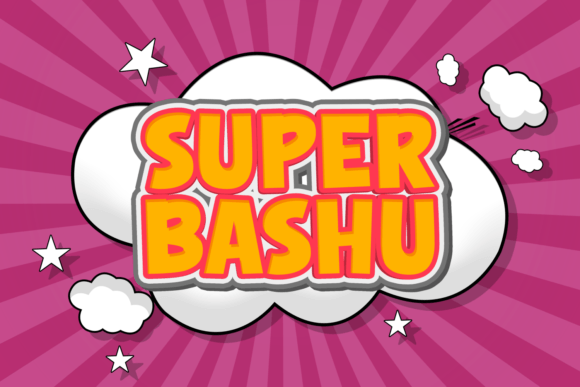
In a world saturated with common, monotonous fonts, allow us to introduce the revolutionary Super Bashu Font—a display font crafted with unparalleled boldness and beauty, poised to elevate your designs to dizzying heights.
Unleash your creativity like never before as you witness the transformative power of Super Bashu. Its captivating strokes, brimming with personality, will breathe life into your projects, making them stand out from the crowd. Whether it's a vibrant pop art poster, a captivating book cover, or an enthralling game for children, Super Bashu Font weaves its magic, adding a touch of uniqueness that captivates and mesmerizes.
Immerse yourself in the boundless possibilities that await as you explore the versatility of Super Bashu. Its captivating curves and sharp edges dance harmoniously, creating a visual symphony that dances across your designs. From eye-catching headlines to thought-provoking titles, Super Bashu Font commands attention, leaving an indelible mark on your audience's minds.
As a creation of Creative Fabrica Fonts, Super Bashu Font embodies the essence of innovation and excellence. It's a masterpiece meticulously crafted to empower designers, artists, and creative visionaries like yourself. Embrace the boundless potential Super Bashu Font offers and unlock a world of design possibilities that will leave you breathless.
Don't settle for ordinary fonts that blend into the background. Embrace the extraordinary with Super Bashu Font—a font that ignites your creativity, captivates your audience, and leaves them longing for more. Experience the transformative power of Super Bashu Font today and embark on a design journey unlike any other.